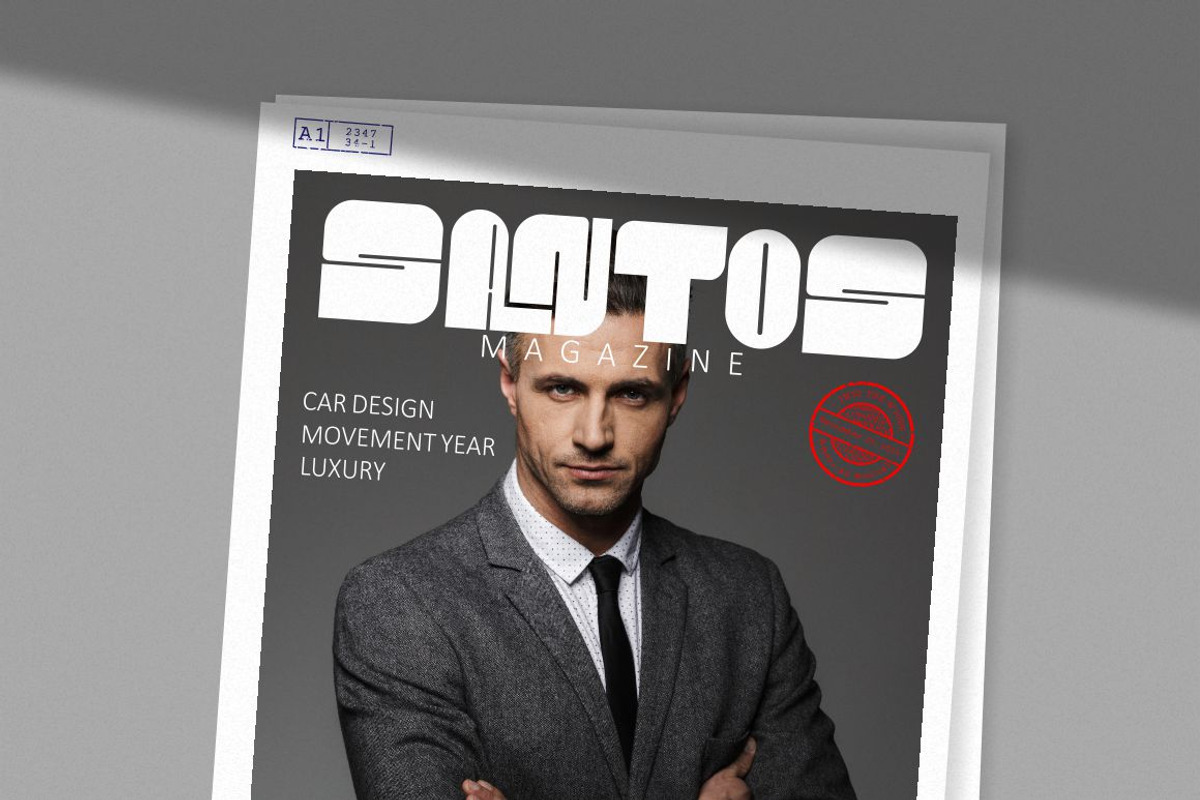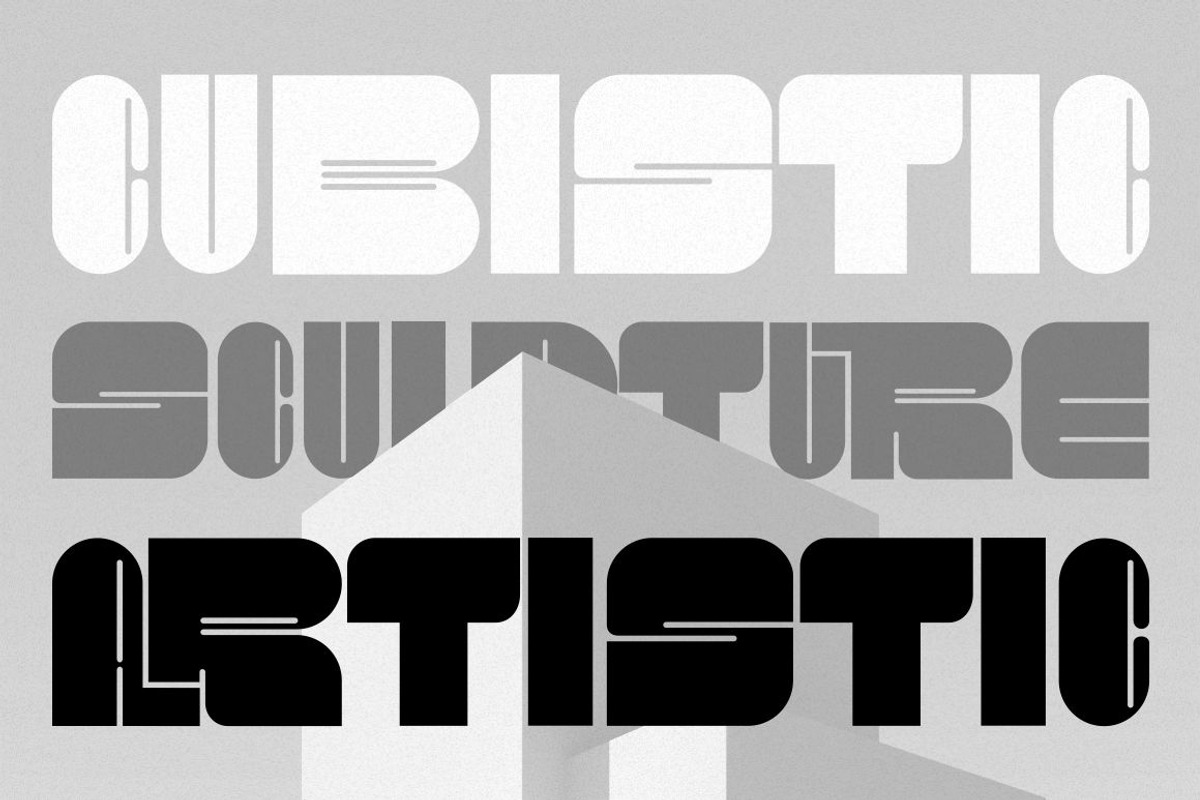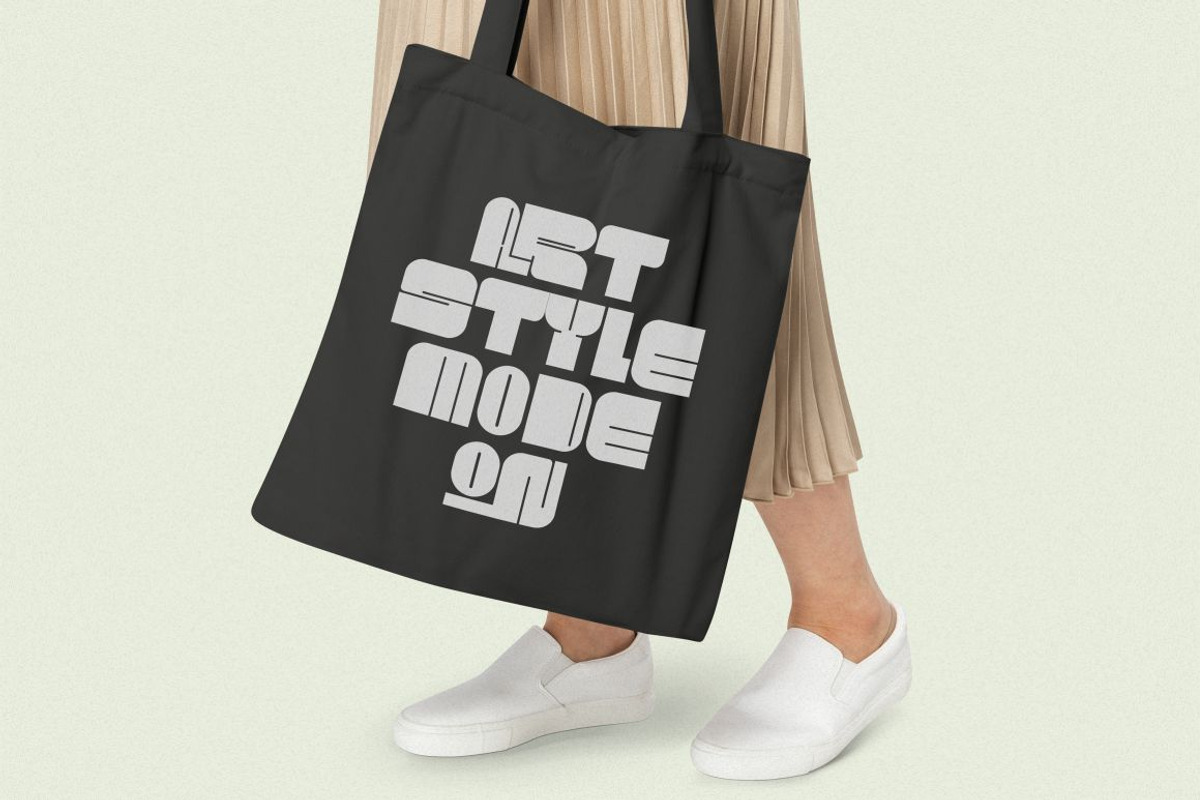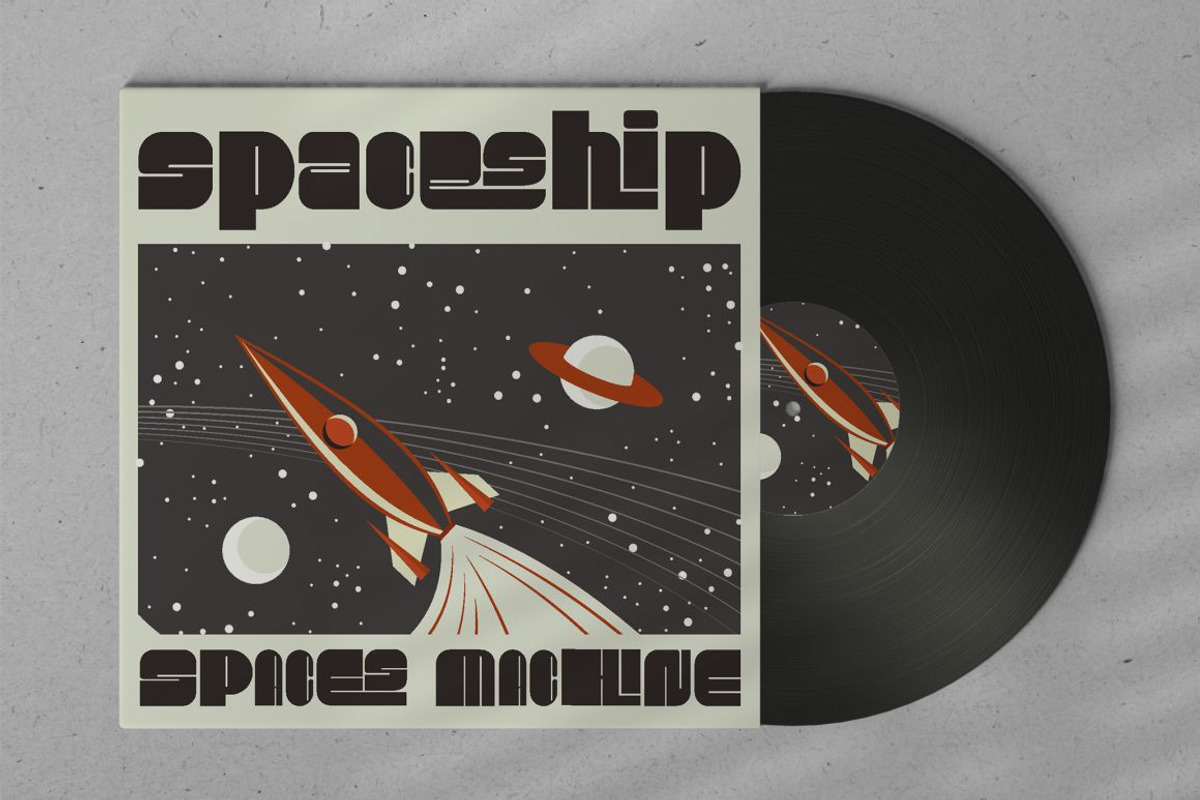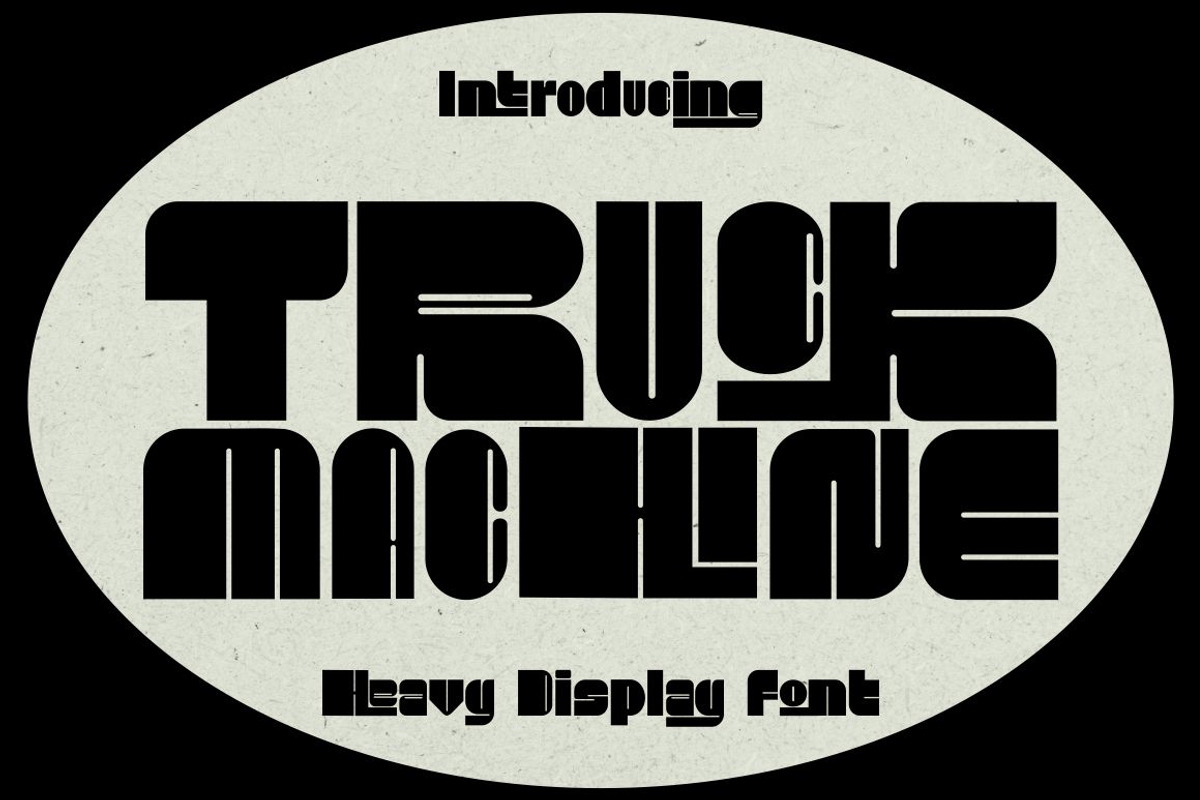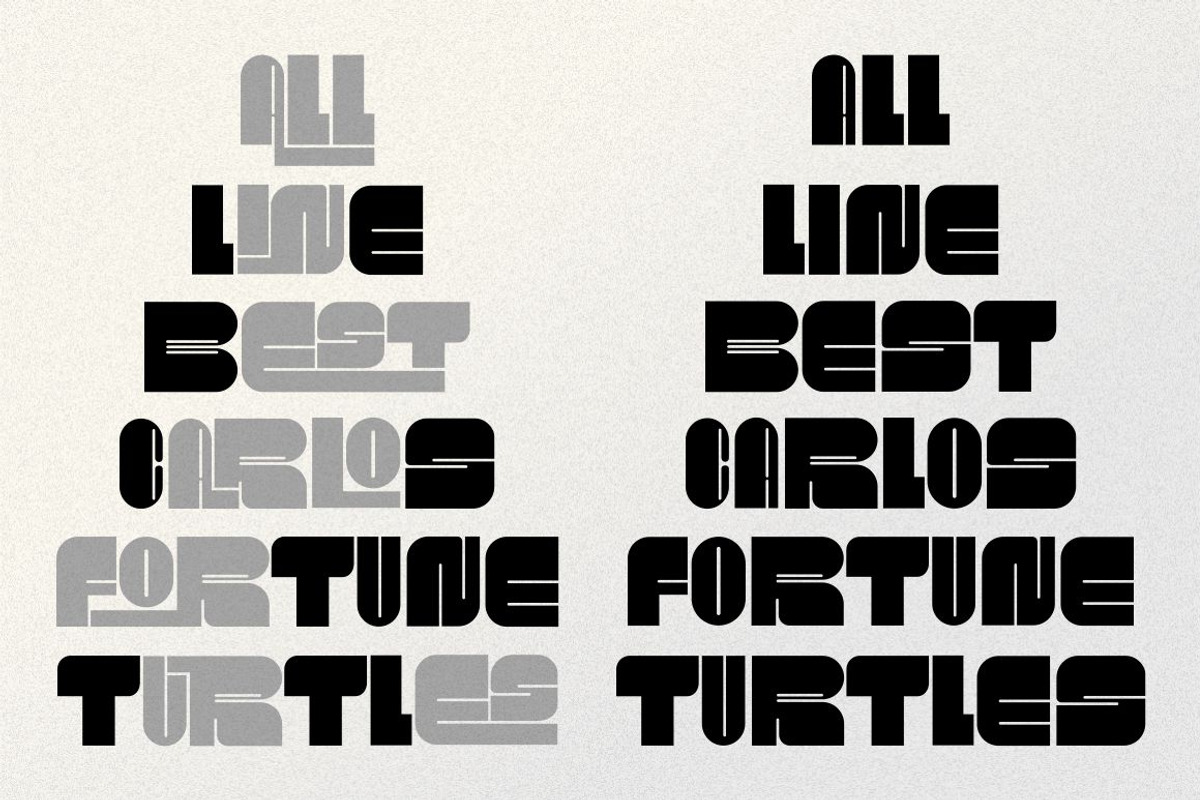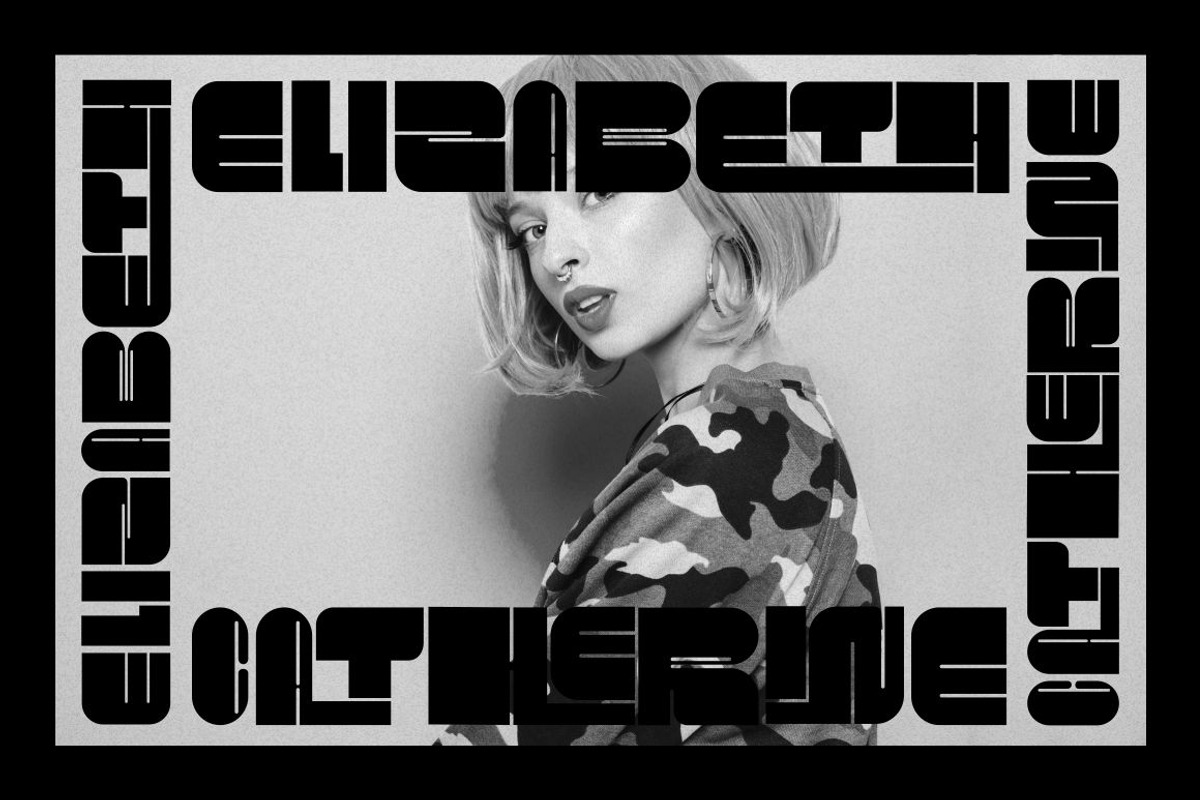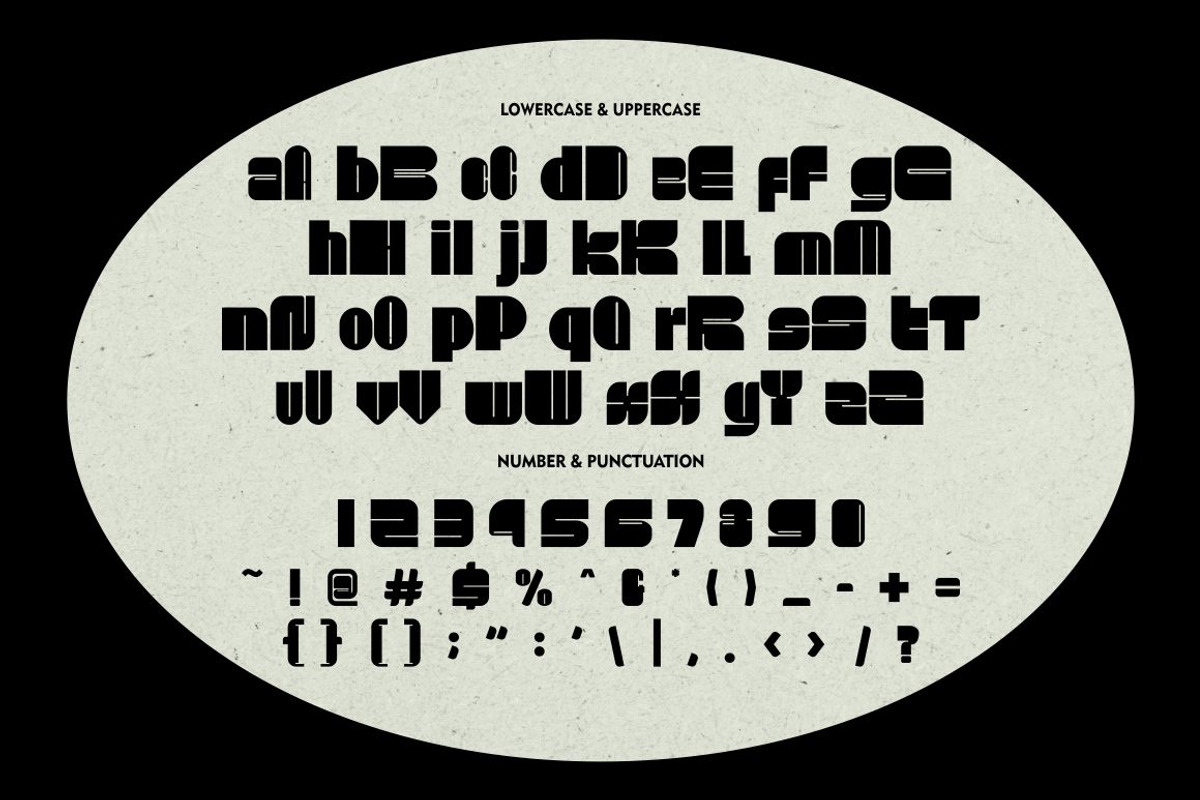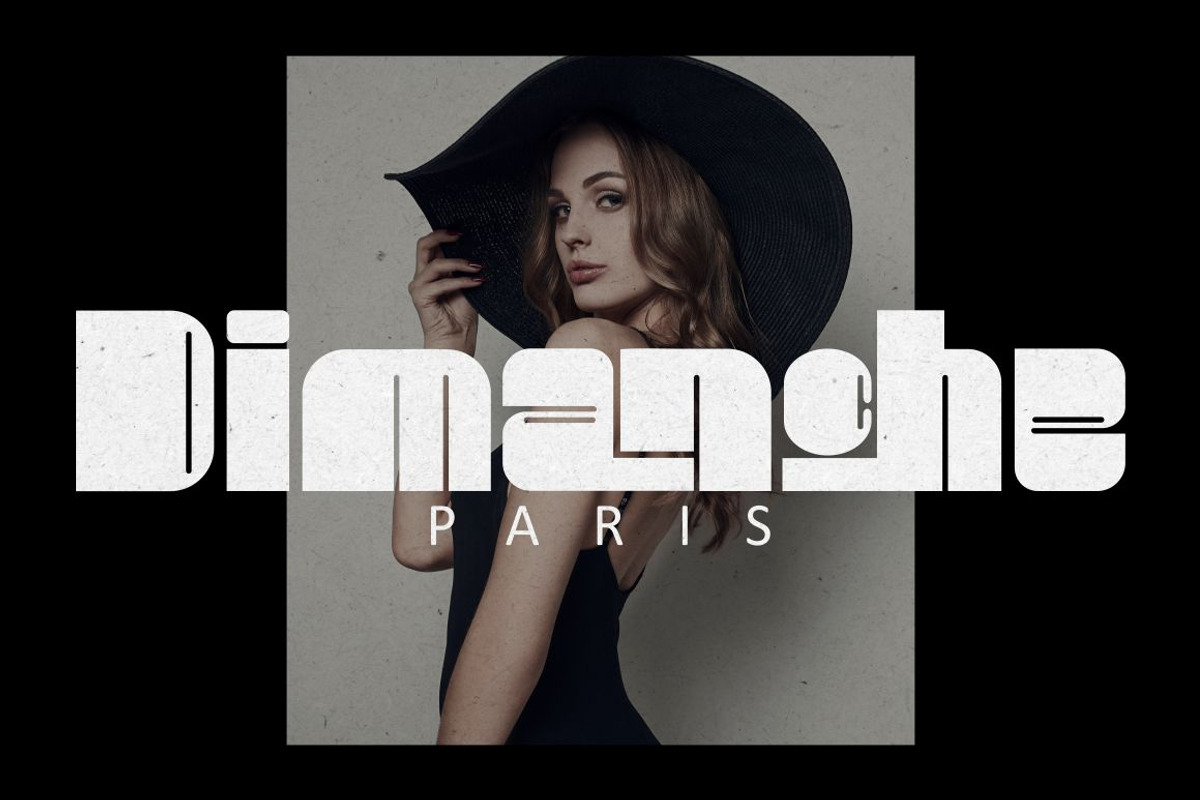
Truck Machine - Heavy Display Font
Truck Machine
Truck Machine is a heavy display font. This font has a very bold body, with unequal widths for the characters. Plus this font has a large number of ligatures, 160 ligatures. So that makes this font more cool and unique. It is suitable for your projects that require fonts with bold and strong characteristics. Such as branding, logos, titles, headlines, printing, magazines, quotes, posters, fashion, t-shirts, apparel and others. This font is also support multi language.
Comes with feature :
- Opentype (Alternates And Ligatures)
- Number, Punctuation And Symbols
- Multilanguage Support.